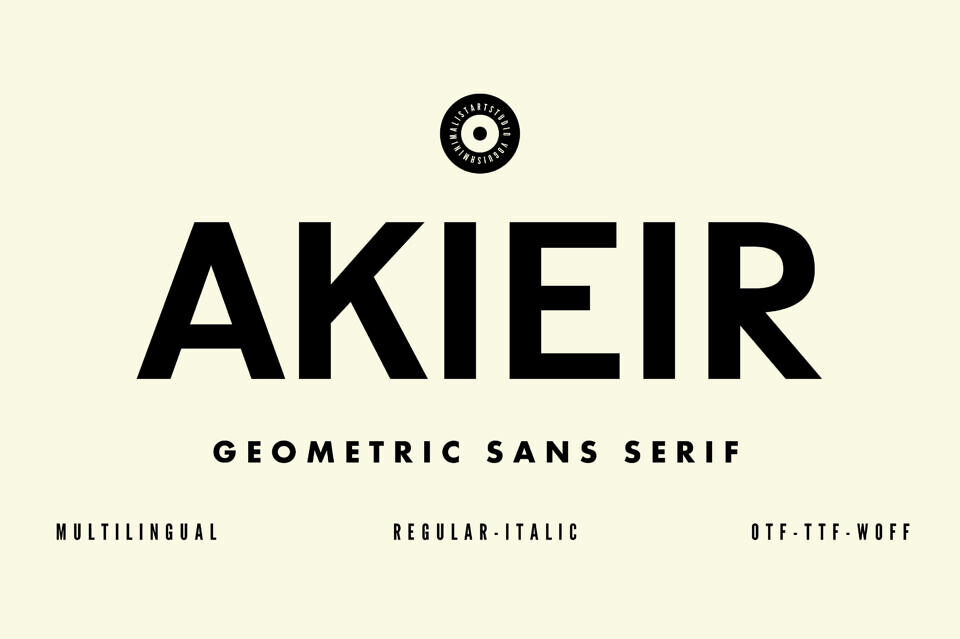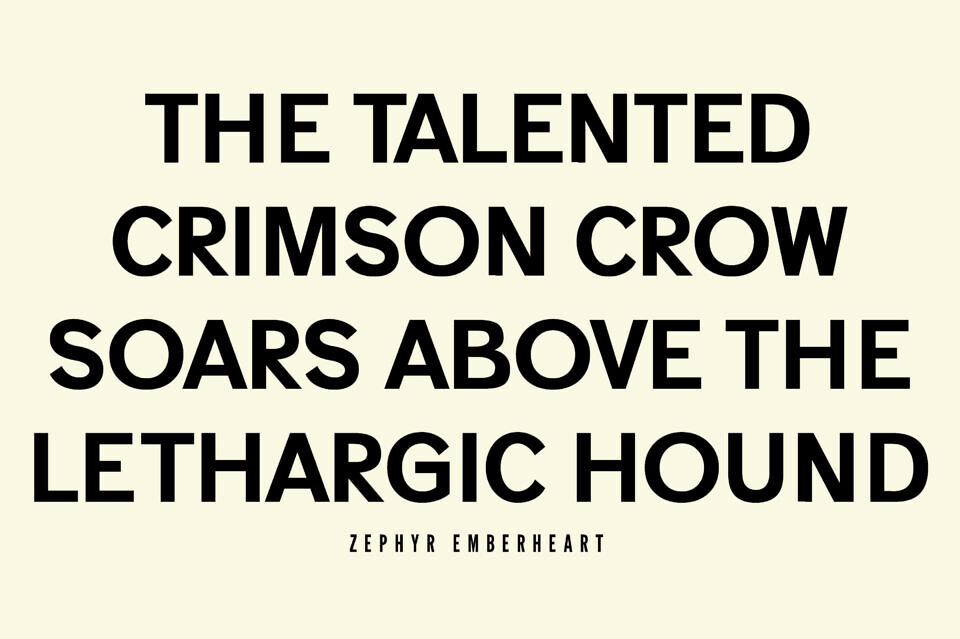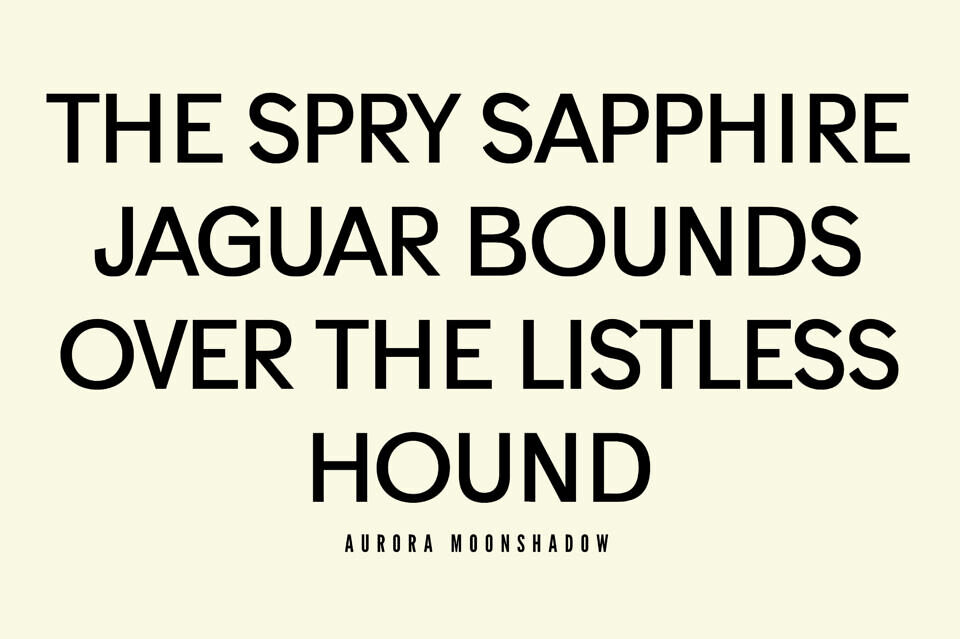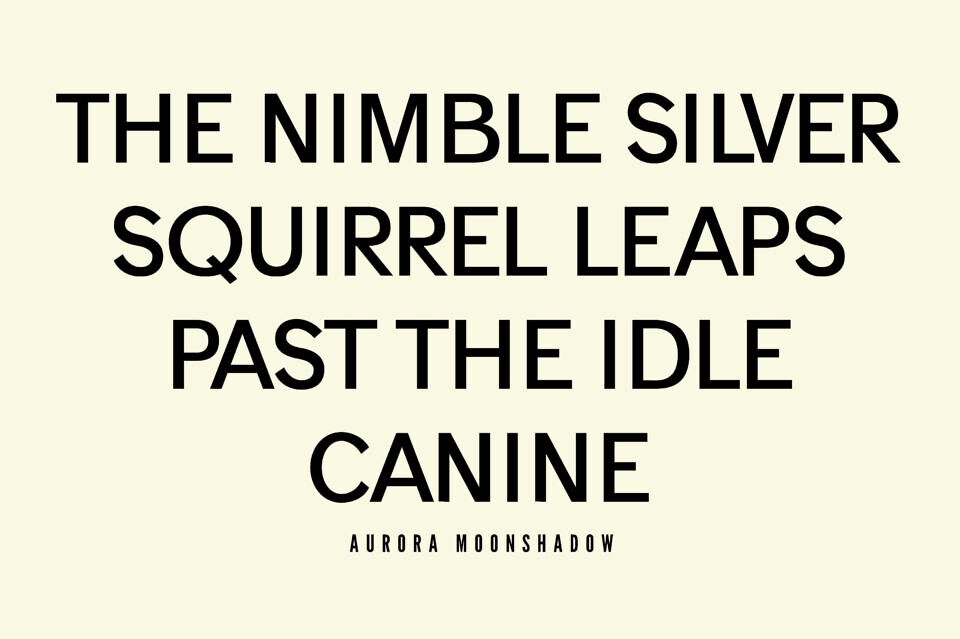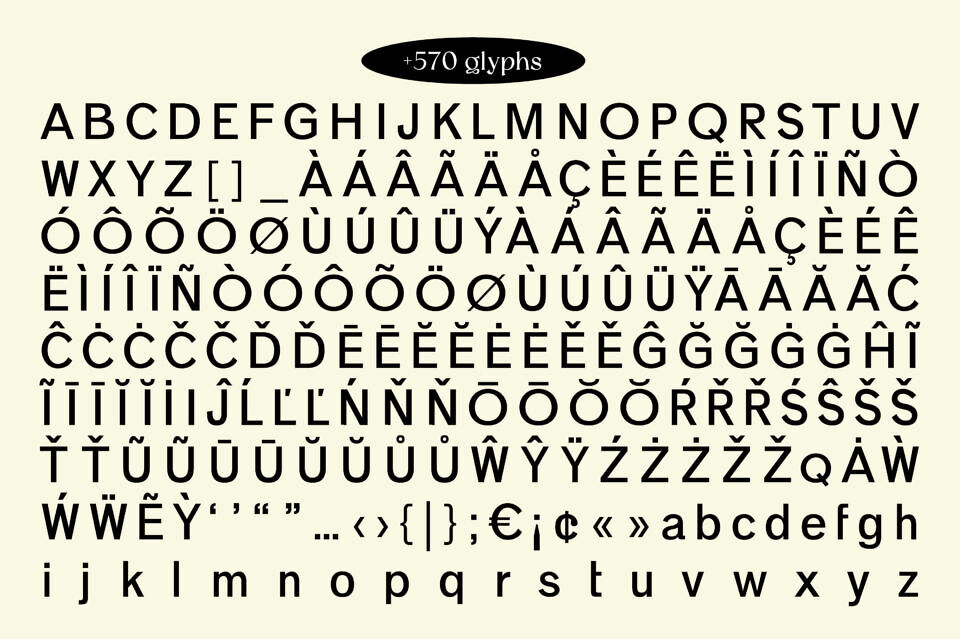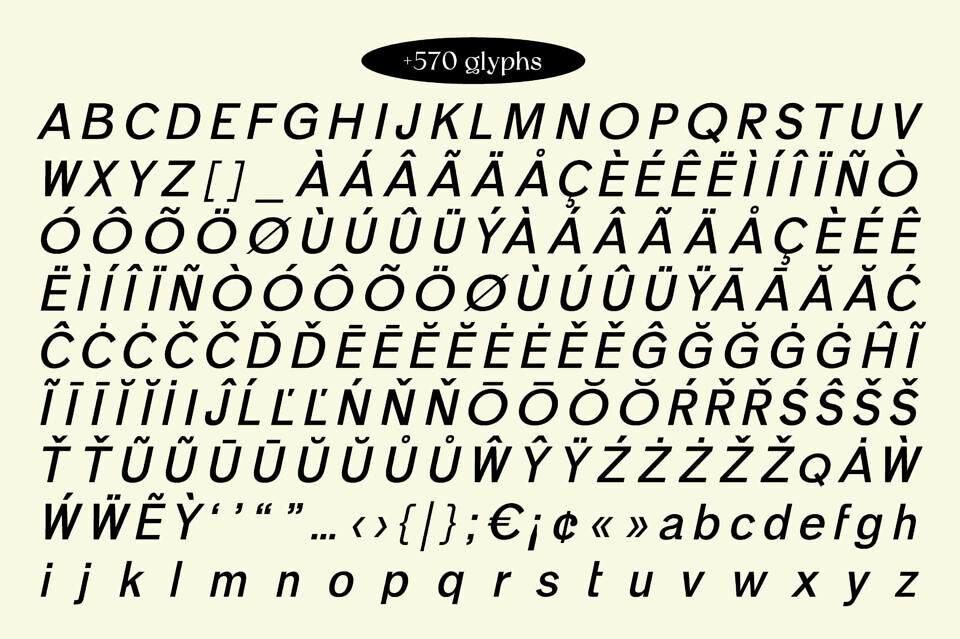
Introducing Akieir, the epitome of minimalist chic. With its sleek lines and geometric shapes, this modern sans serif typeface exudes sophistication. From logos to headlines, Akieir captivates with its balanced letterforms and timeless design. Its simplicity ensures legibility at any size, making it perfect for branding, editorial layouts, and web design.